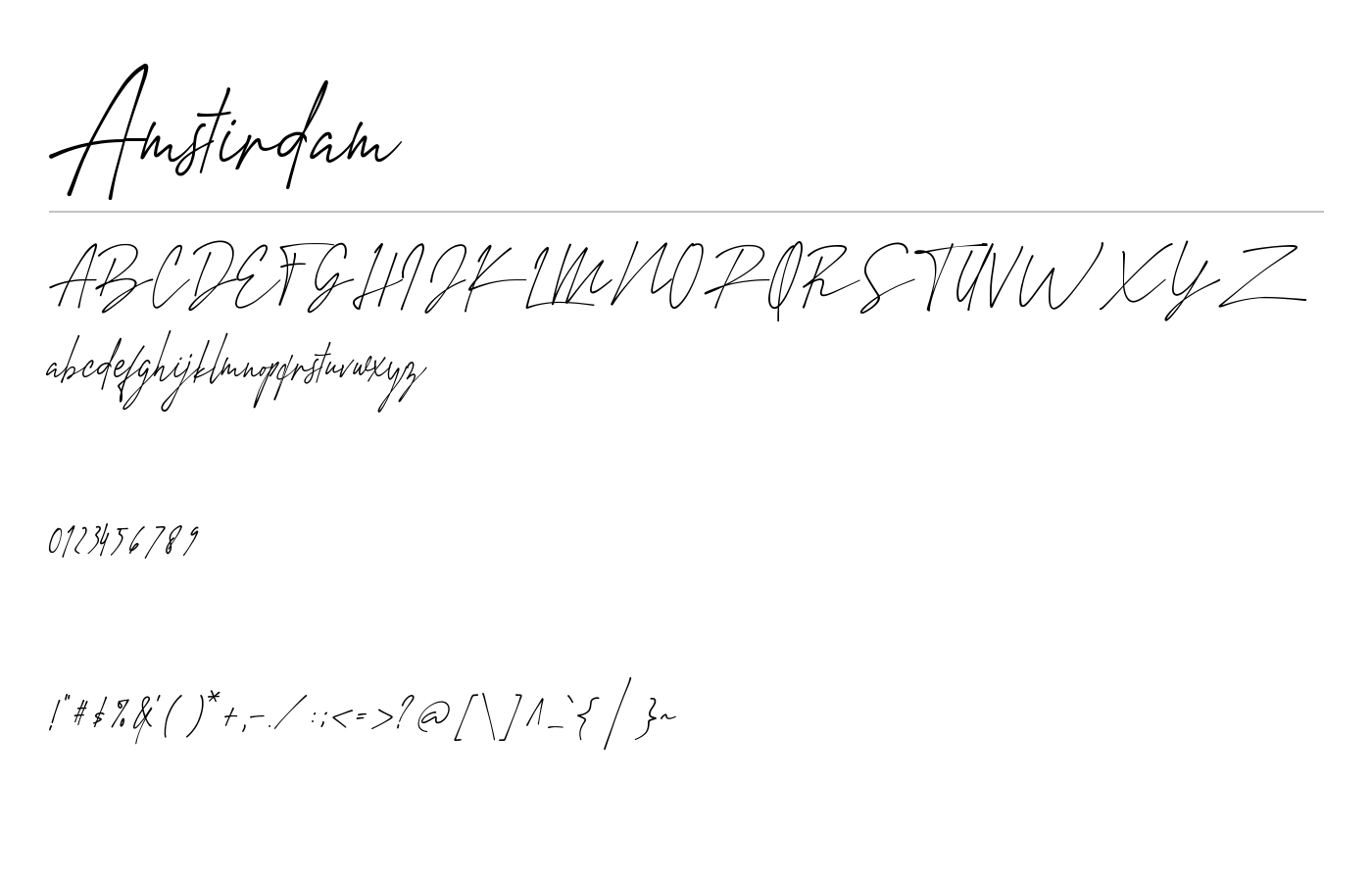
Amstirdam is a delicate, handwritten script font characterized by its thin, elegant strokes and slightly condensed letterforms. Its airy and casual style gives a personal, artistic touch, making it ideal for invitations, branding, and creative projects that seek a sophisticated yet approachable feel. This font works best in display settings where a refined, modern script can add charm and personality without overwhelming the design.
Amstirdam Font
About Amstirdam Font